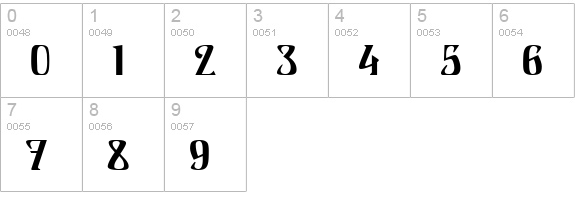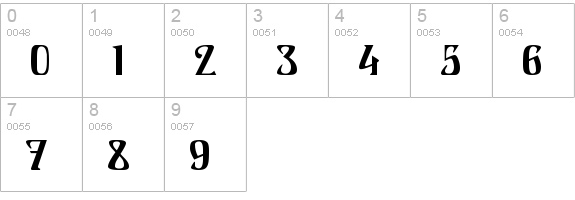
Franconia MF Font Details
Franconia MF is a versatile and elegant font that exudes sophistication and charm. With its stylish serifs and classic proportions, this typeface is perfect for a wide range of design projects, from branding to editorial design. The timeless appeal of Franconia MF makes it suitable for both modern and traditional applications. The best part? Franconia MF is available for free download at FontsMarket.com. Whether you're a professional designer looking to add a new font to your collection or a hobbyist in need of a high-quality typeface, Franconia MF is a fantastic choice. Don't miss out on the opportunity to enhance your projects with this beautiful font, available at no cost.